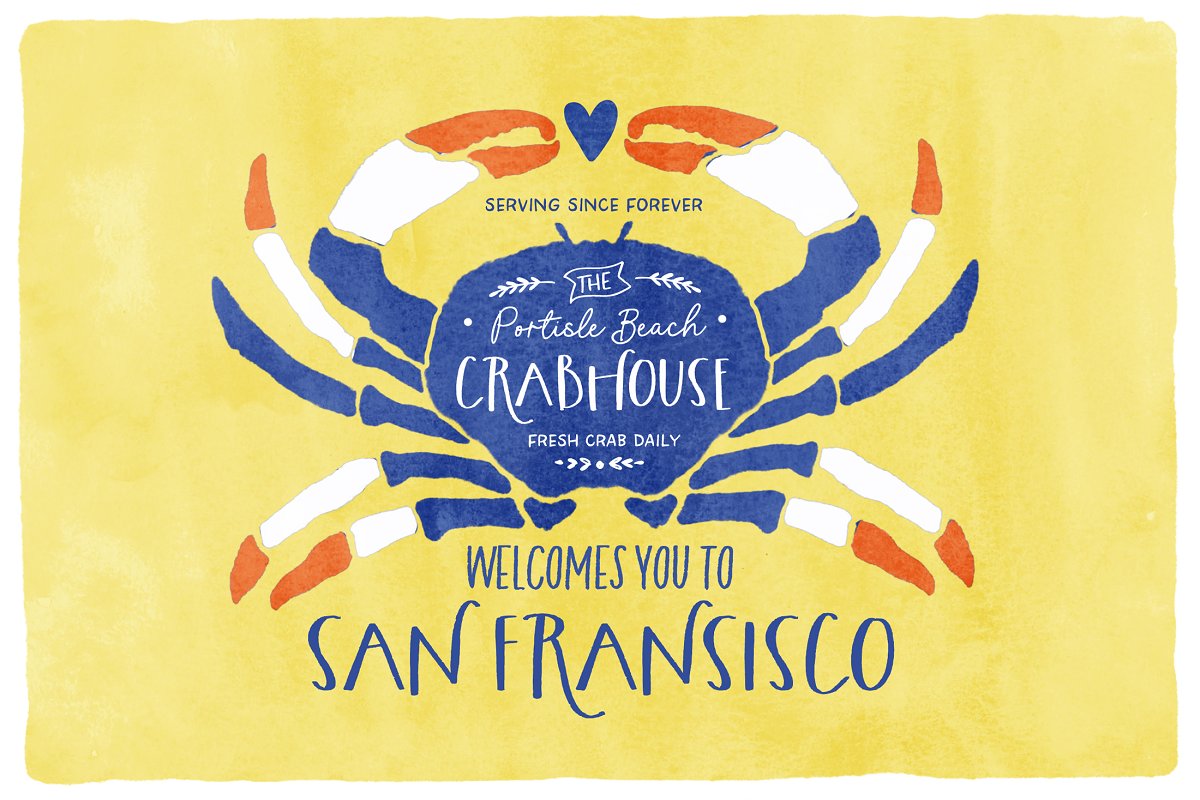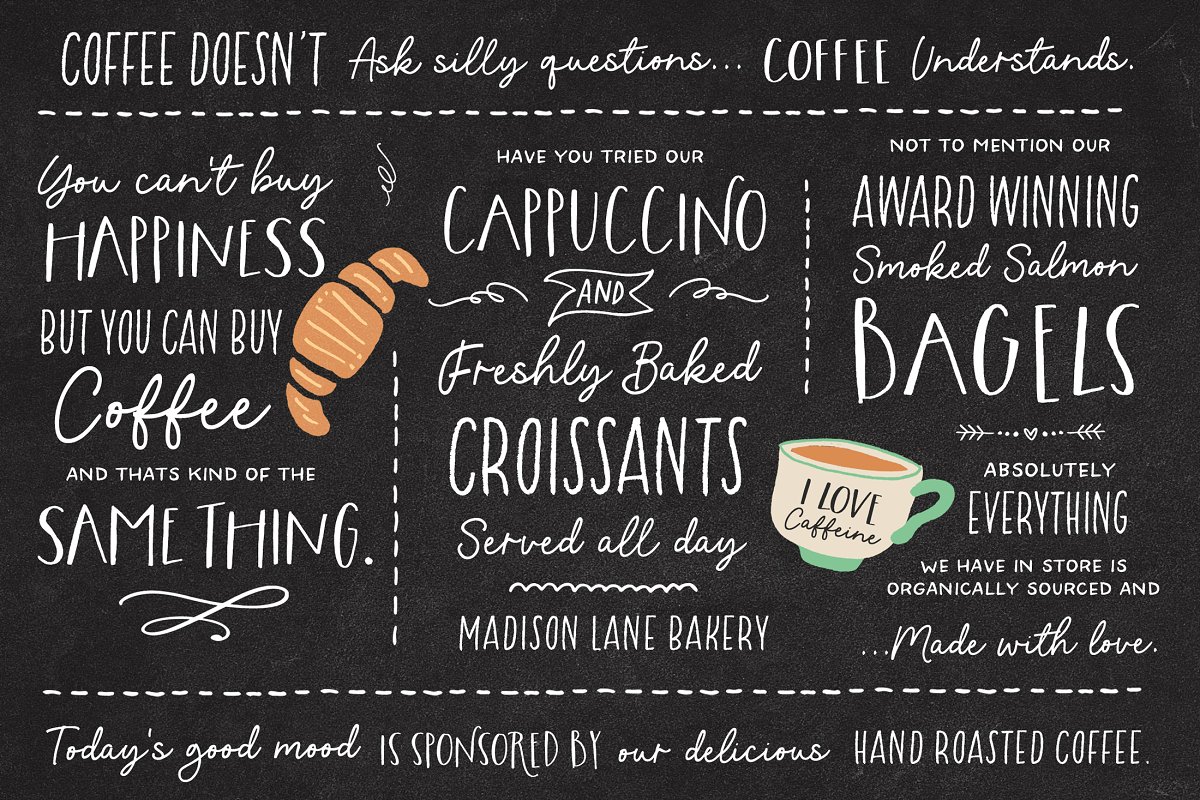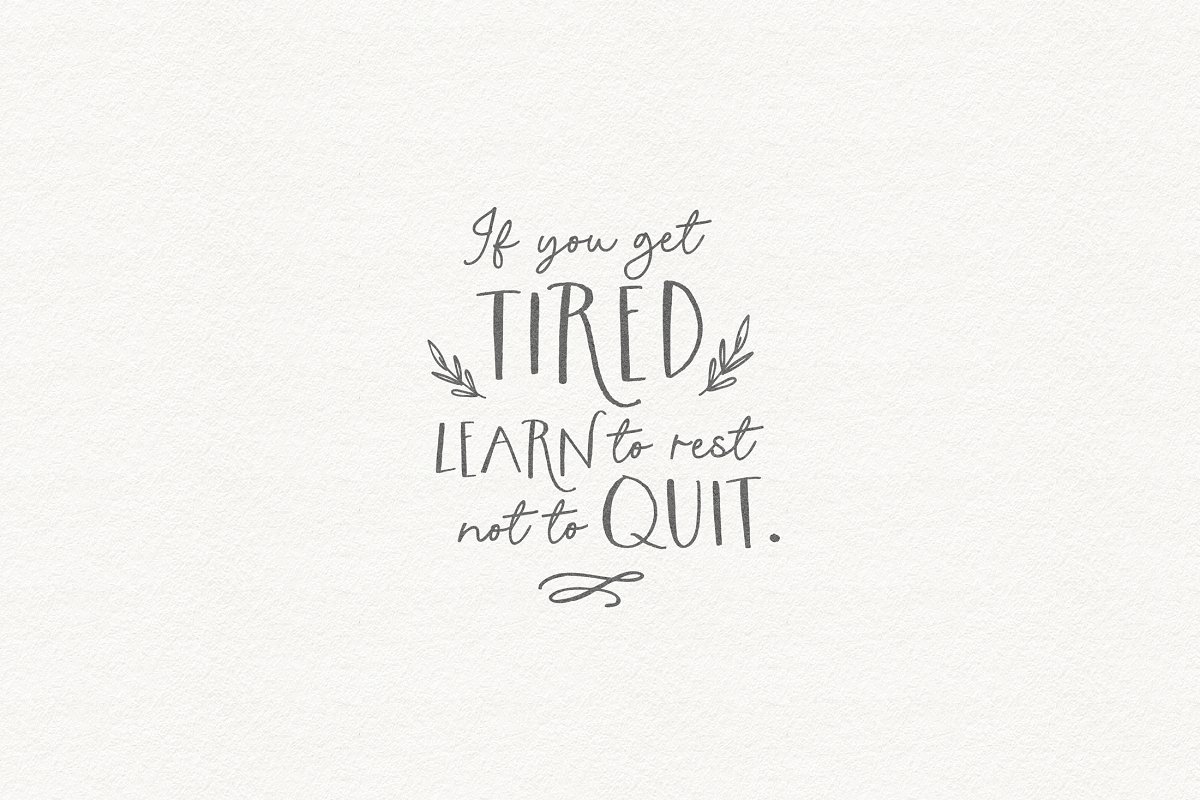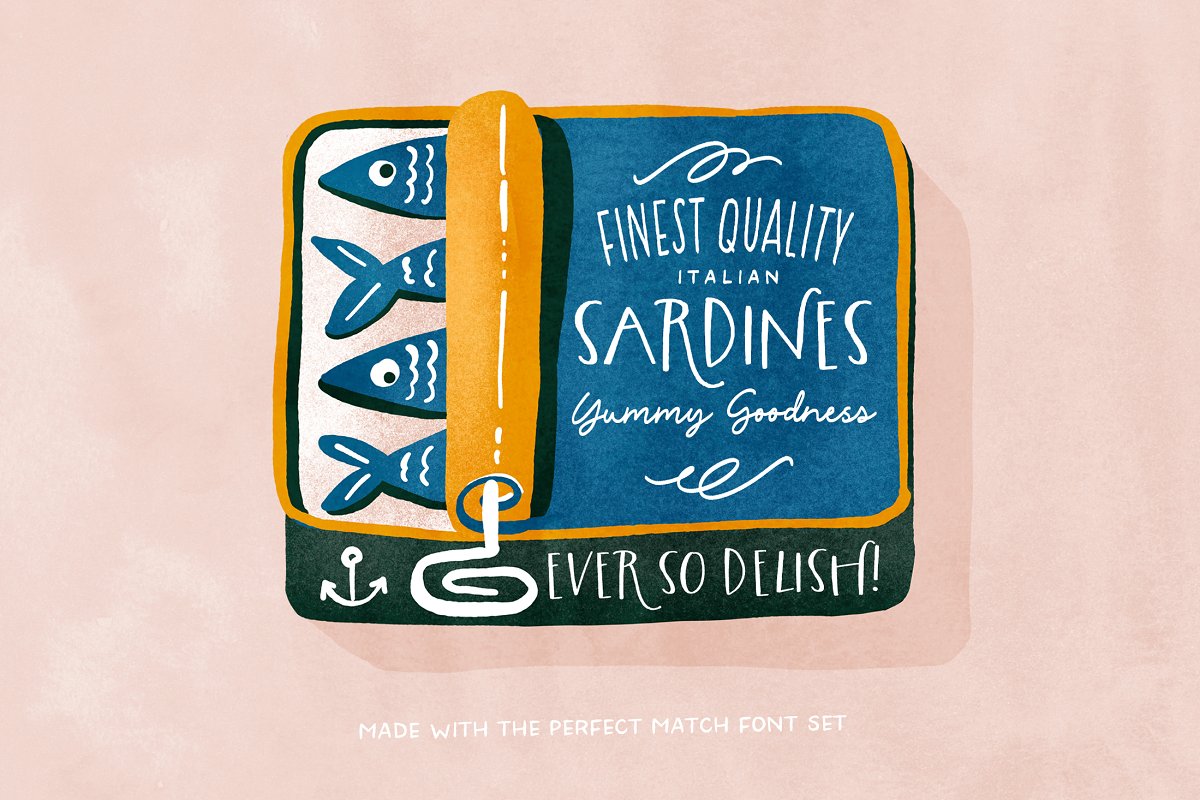
About the The Perfect Match and Dings Font
Special Introductory Price at $20 for a limited time – A Set of 6 Fonts to the full value of $60, 00, Say hello to The Perfect Match Font set! 4 lovingly hand-drawn fonts made to complement each other perfectly in your type designs, Perfect for quote designs, quaint logos, clever packaging, sign boards,greeting cards, merchandise designs and so much more!Also included is 2 extra ‘Dingbat’ fonts – packed full of cute little hand doodle extras – to really make your designs come together beautifully!INCLUDED IN THE PACK : The Perfect Match Display